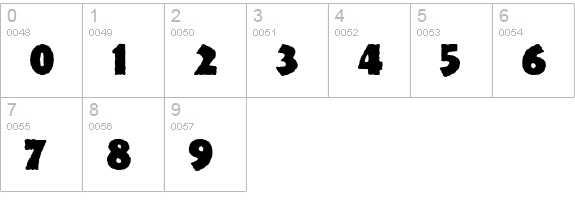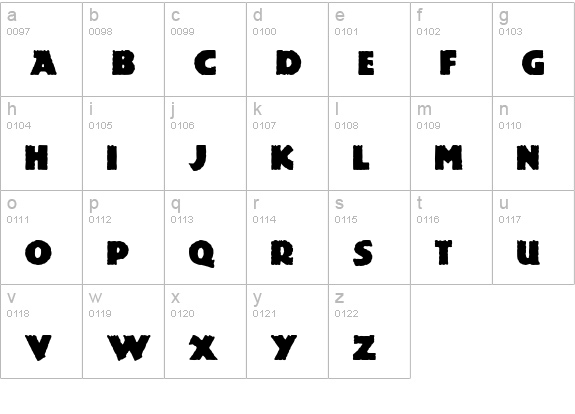
Dinosauria Normal Font Details
Dinosauria Normal is the standard, neutral variant in the Dinosauria typeface family \xE2\x80\x94 well suited to general body text, paragraphs, and standard typographic work.
Dinosauria Normal font is a captivating typeface inspired by the ancient and majestic creatures that once roamed the Earth. With its rugged edges and bold presence, this font exudes power and strength, making it perfect for projects that require a touch of prehistoric charm. What sets Dinosauria Normal font apart is not only its unique design but also the fact that it is available for free download at FontsMarket.com. This means that you can easily access this striking font and use it in your creative endeavors without any cost. Whether you're working on a poster, logo, or any other design project, Dinosauria Normal font is sure to make a bold statement and leave a lasting impression. Download it today and unleash the raw power of this remarkable typeface.